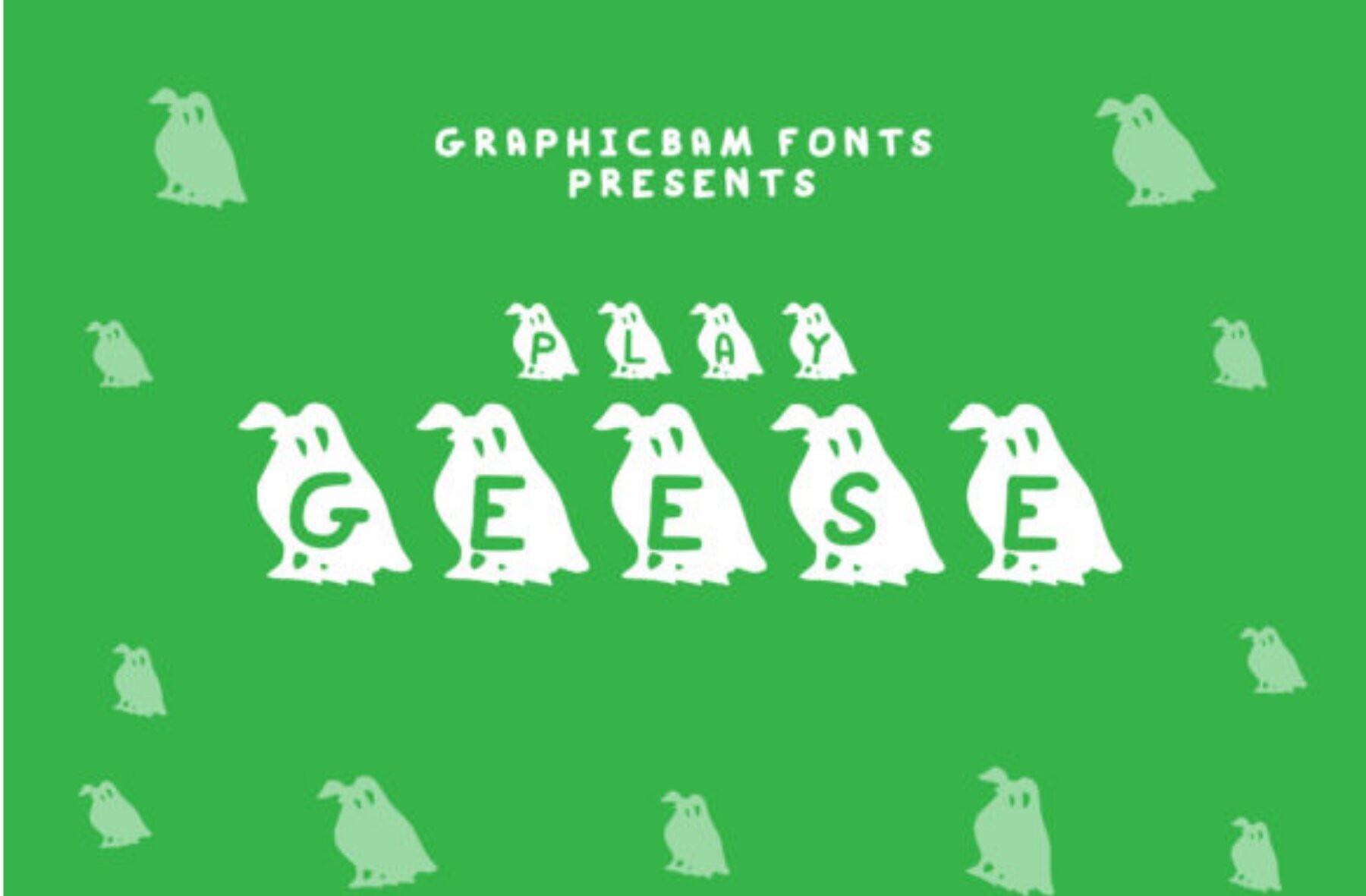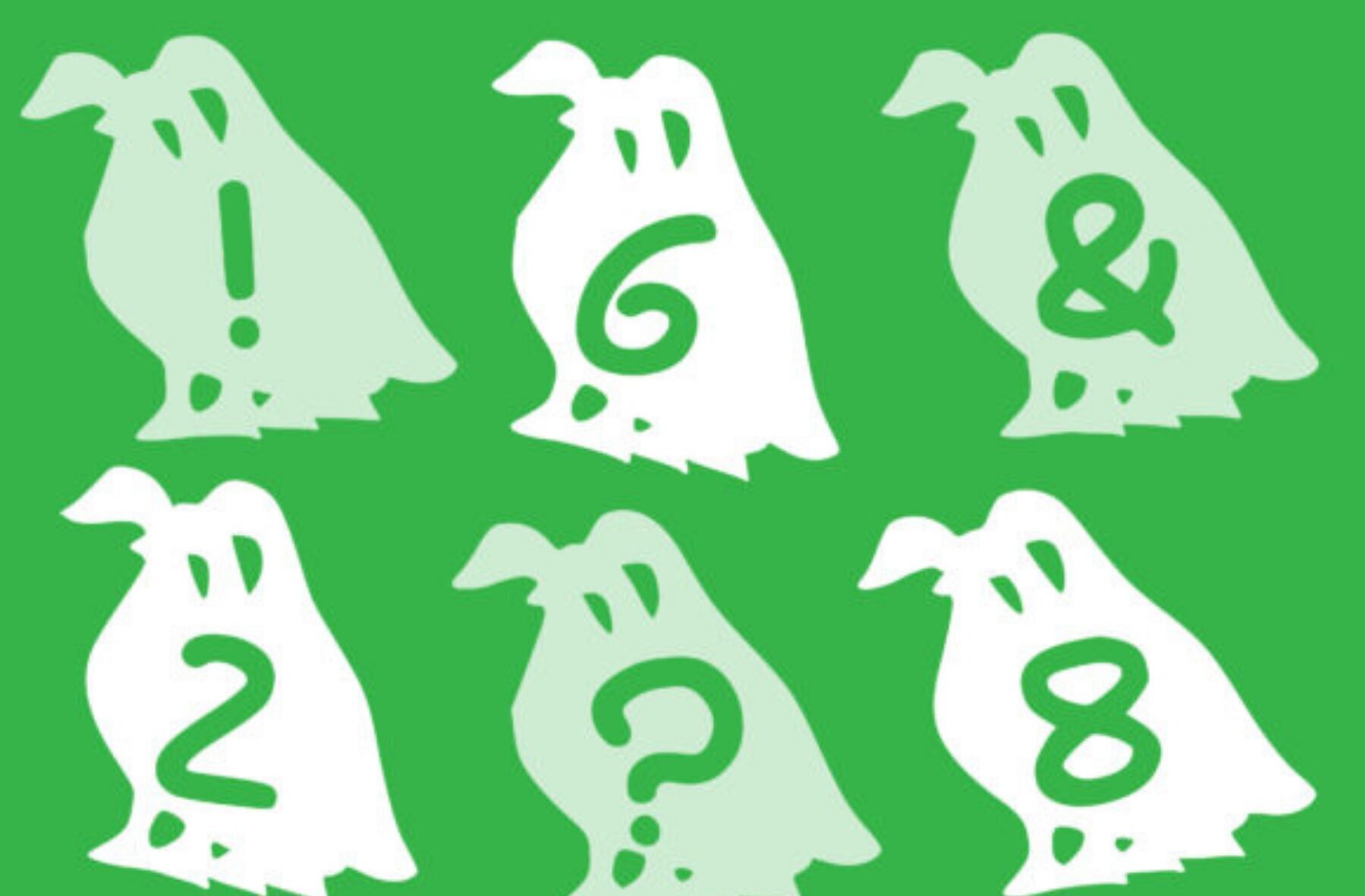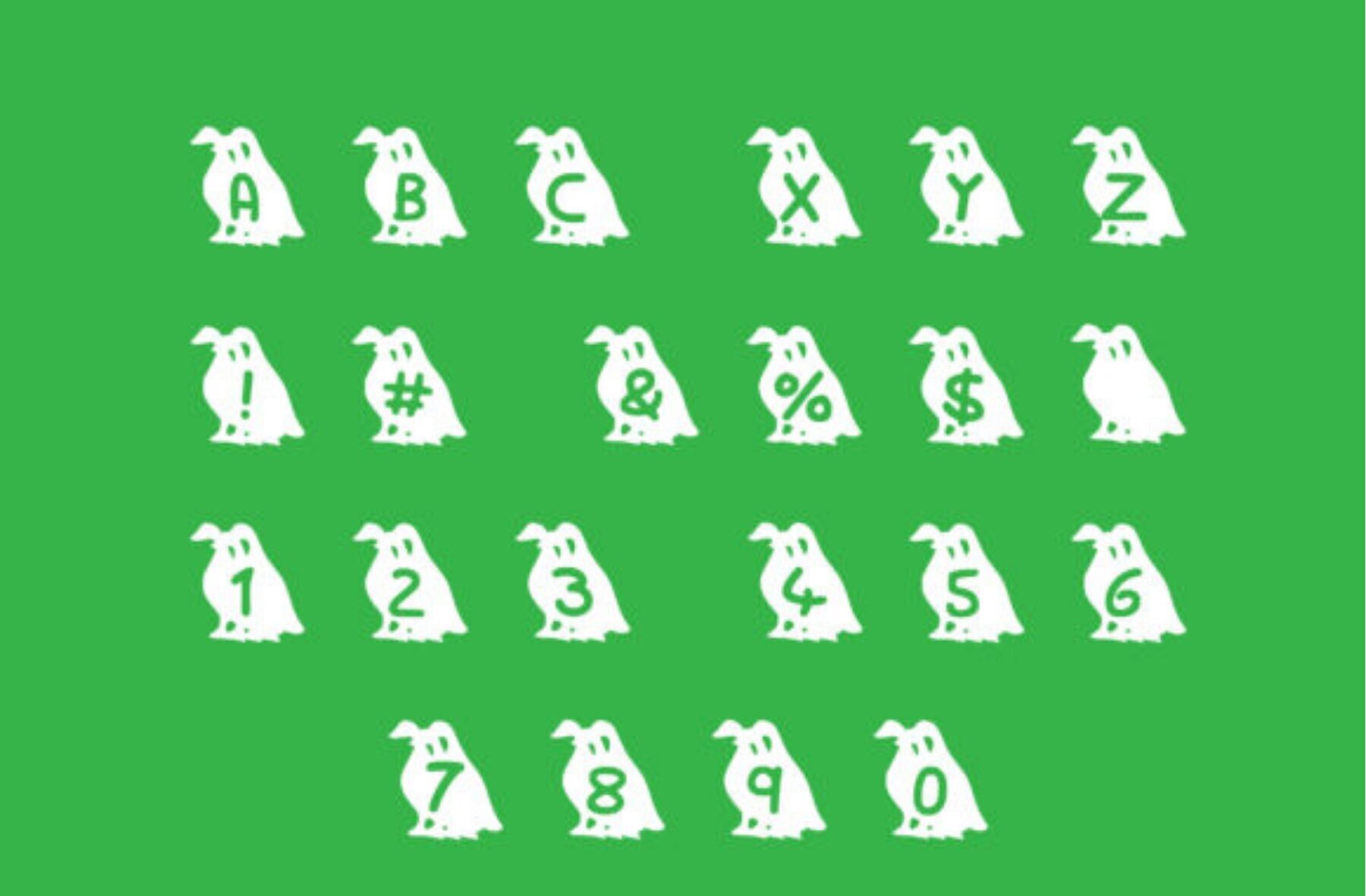
Play Geese Font
Play Geese Regular
Dive into the playful charm of the Play Geese font, a captivating decorative typeface that adds a splash of audacity to any project. Perfectly tailored for bold designs, this font ensures your ideas don't just fit in—they stand out. Whether you're crafting back-to-school banners, biology-themed artwork, or farm-related concepts, Play Geese injects a vibrant flair into your creations.Play Geese Font